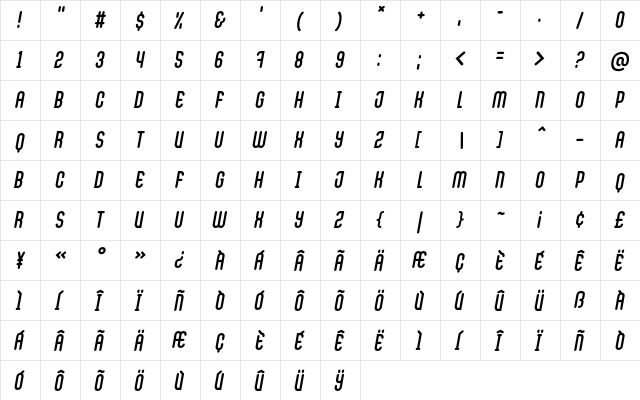
Cactron Italic
Design Context for Cactron Typeface
Cactron is a composed and adaptable typeface that performs quietly and consistently across a wide range of design contexts. The dynamic lean of this cut emphasises speed and emphasis in any layout.
Pro Tip: Try Cactron for annotation and caption copy alongside an upright companion — the contrast in angle creates a dynamic but ordered typographic system.